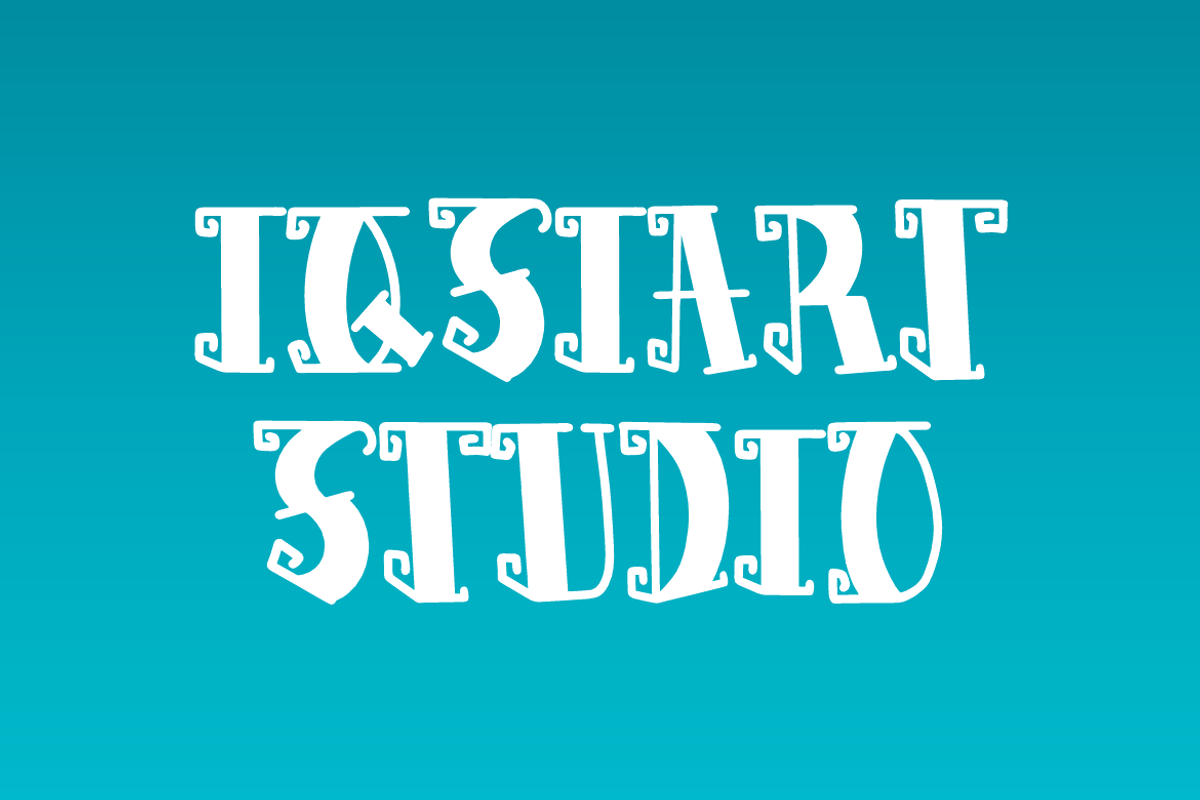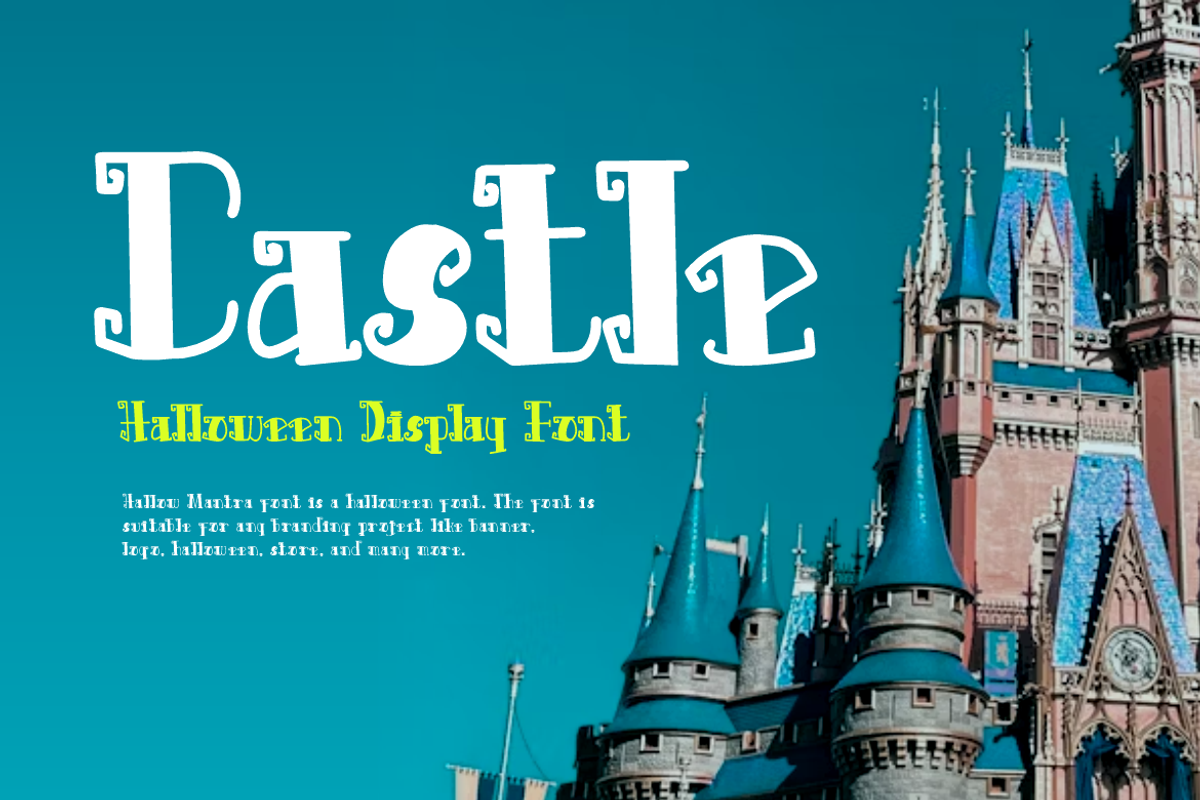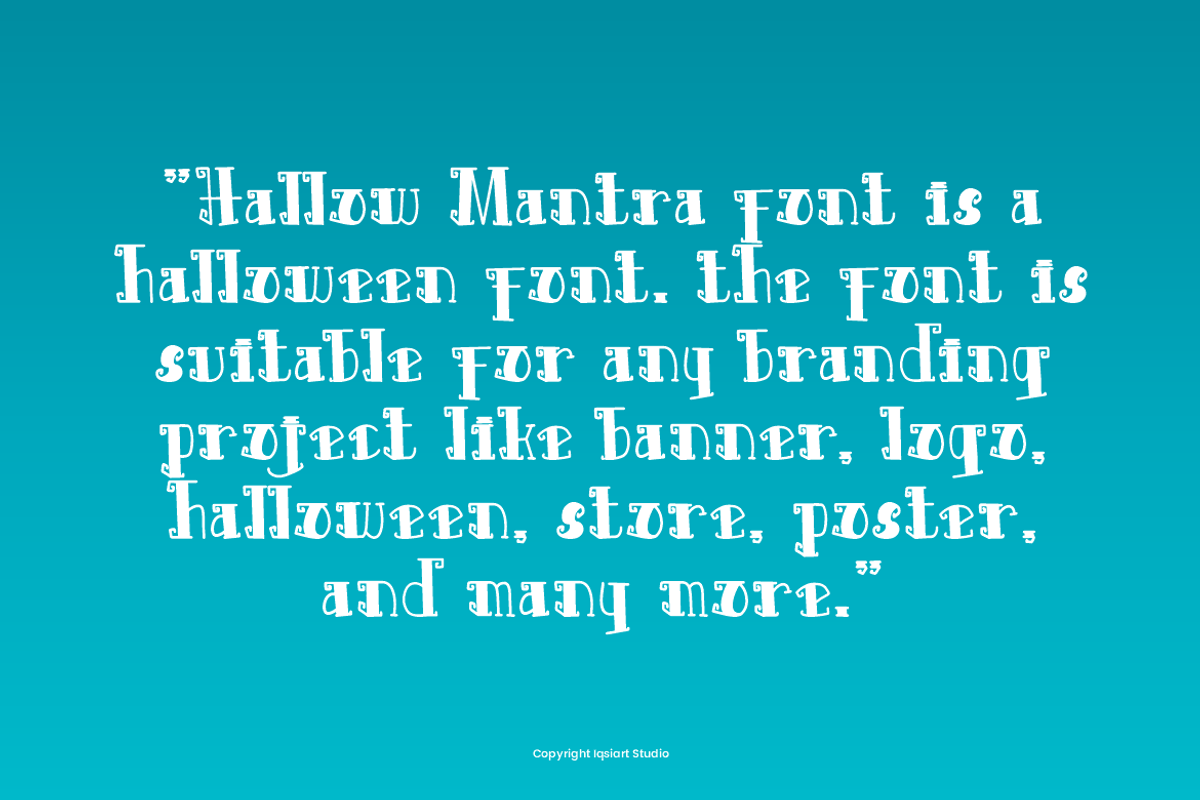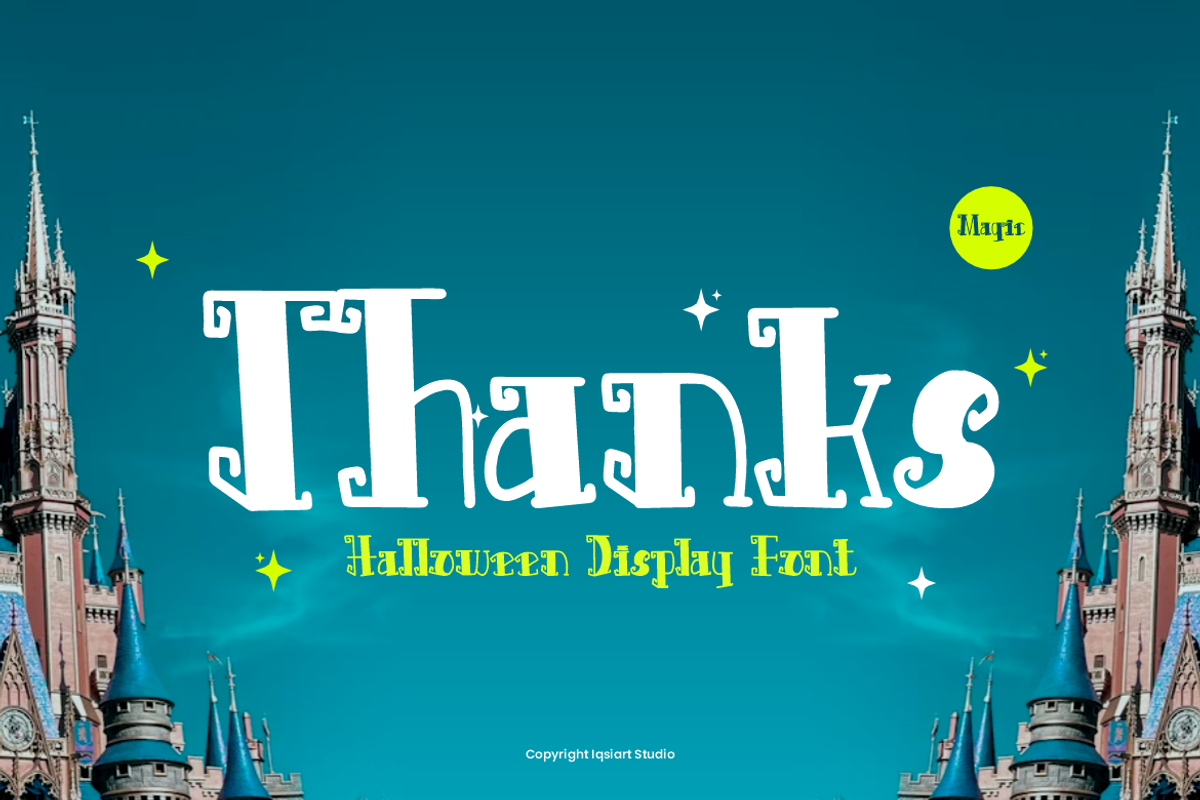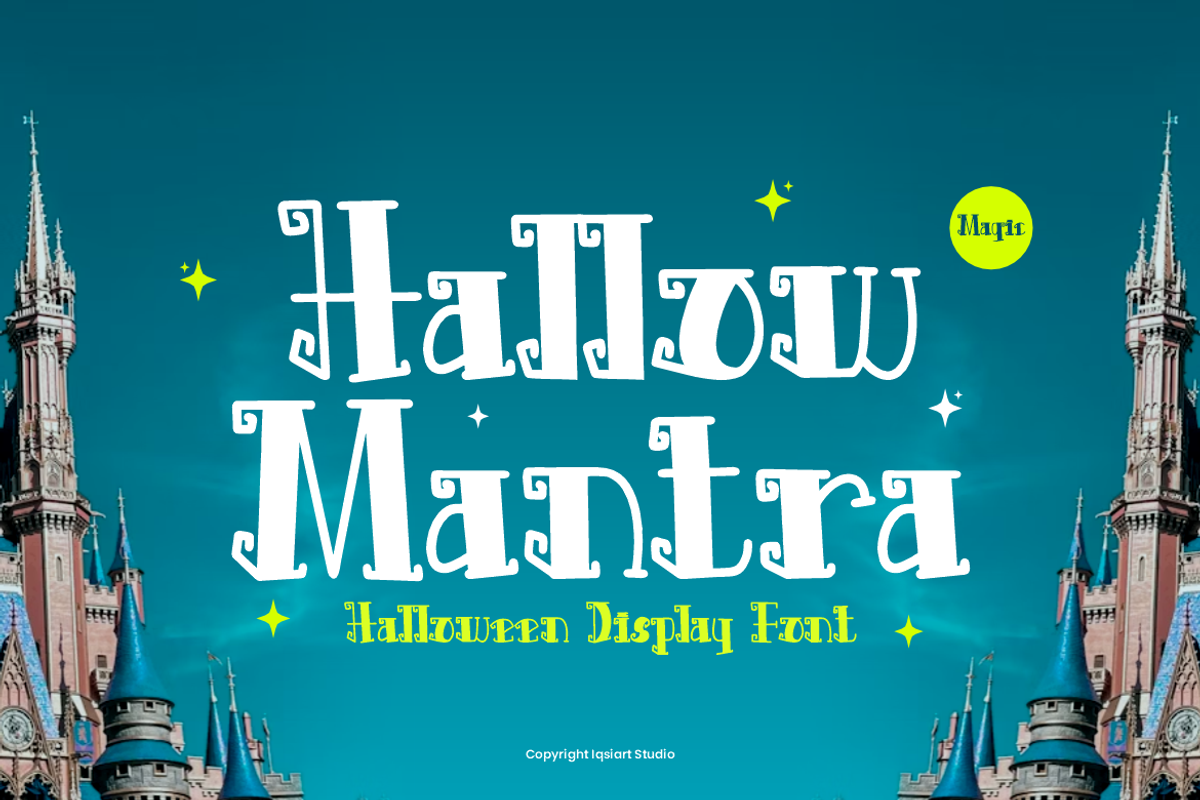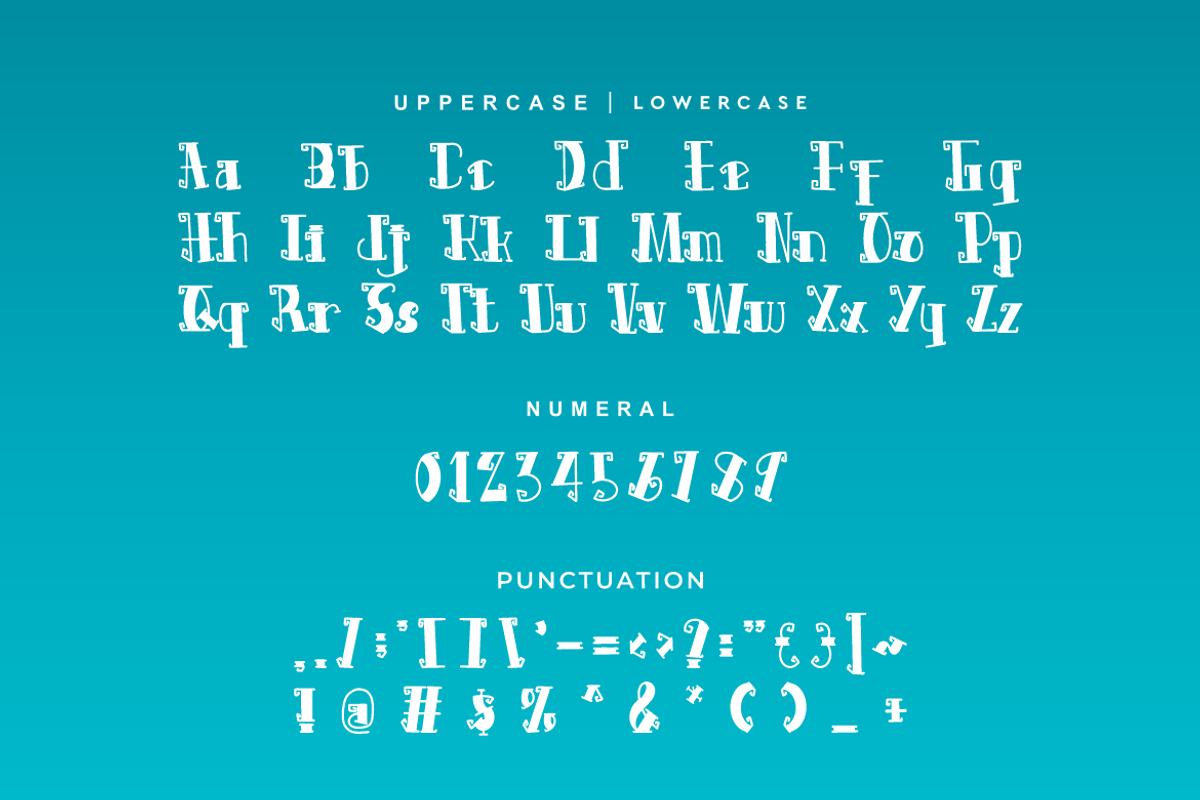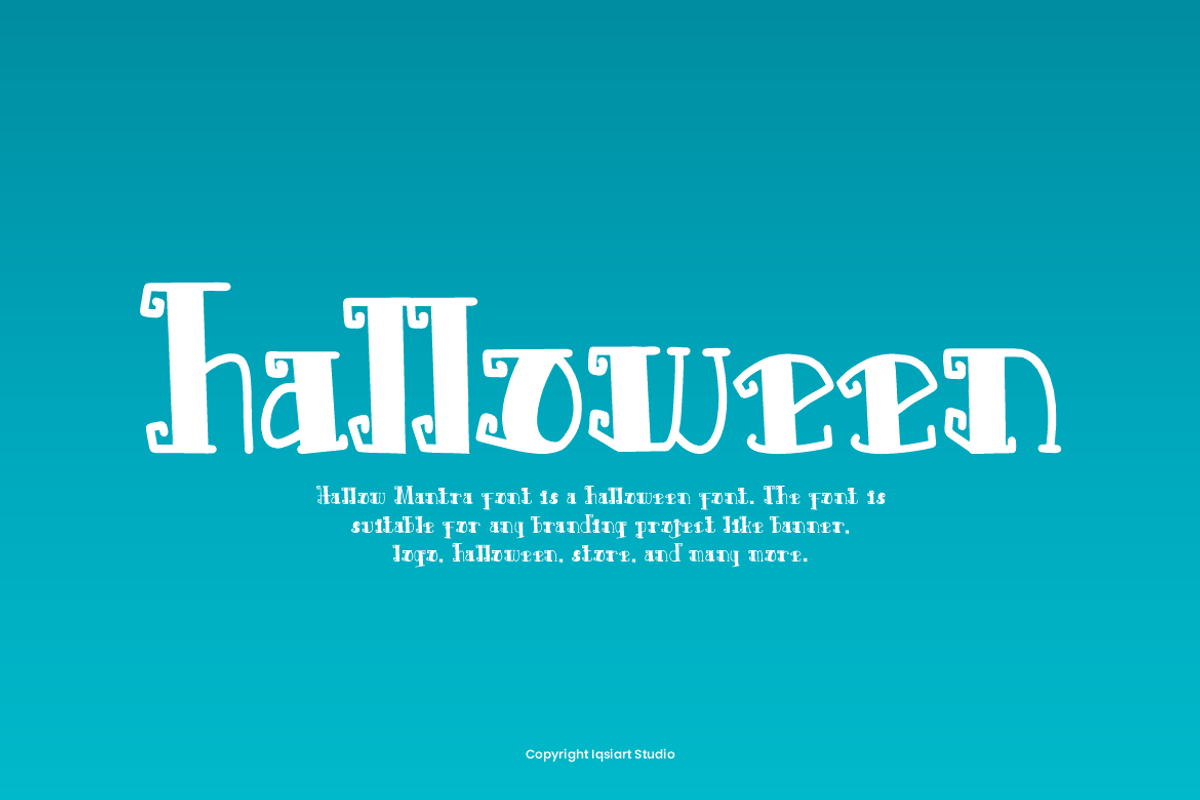
Hallow Mantra - Halloween Font
Hallow Mantra Font is a best and authentic display font. This font can be used for your various needs. We provide various themes and font styles. visit our profile to get a wide variety of themes and different font styles you need.